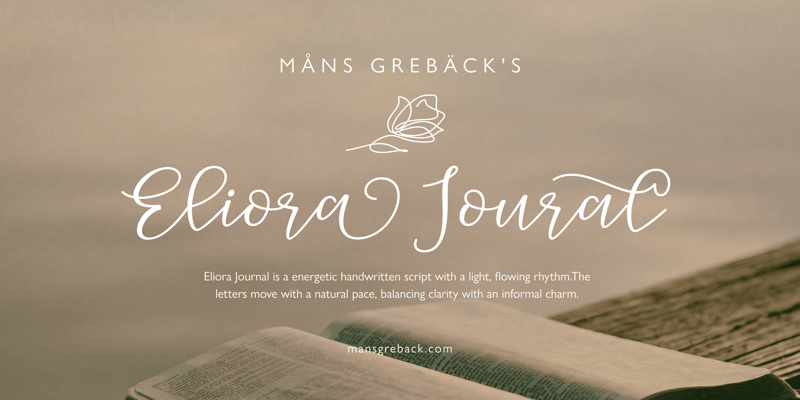
Eliora Journal
NOTE: This font is for PERSONAL USE ONLY! To purchase a commercial license, visit: https://www.mansgreback.com/product/eliora-journal Eliora Journal is a energetic handwritten script with a light, flowing rhythm. The letters move with a natural pace, balancing clarity with an informal charm. Strokes are smooth and slightly varied, giving the impression of handwriting done with vigor, as if written in a personal notebook. For questions, please visit https://mansgreback.com/faq